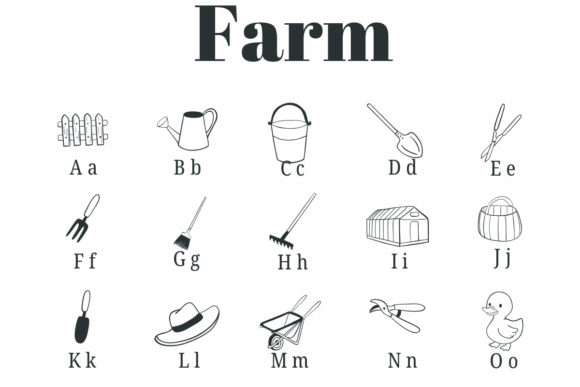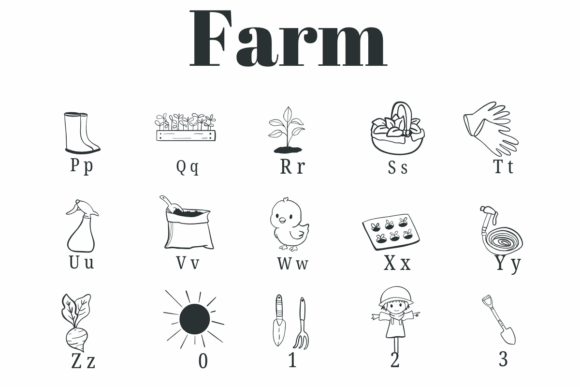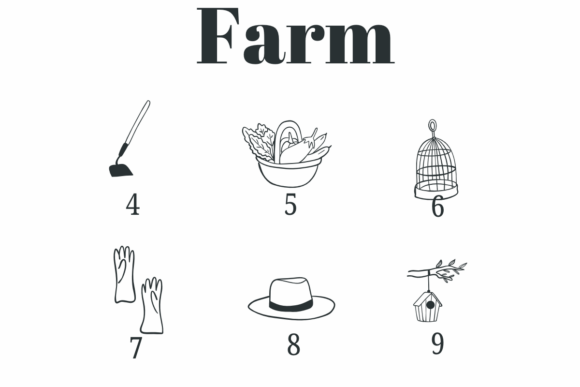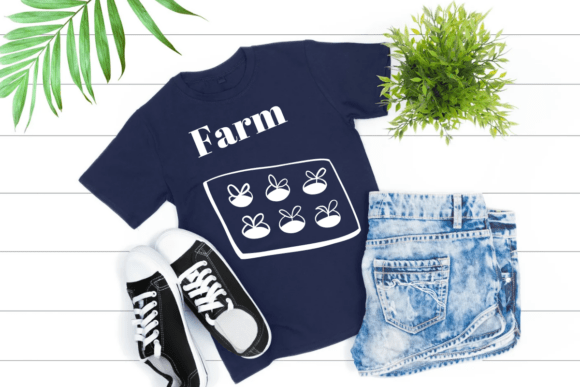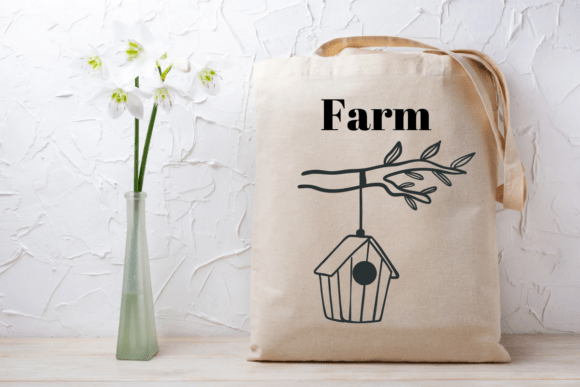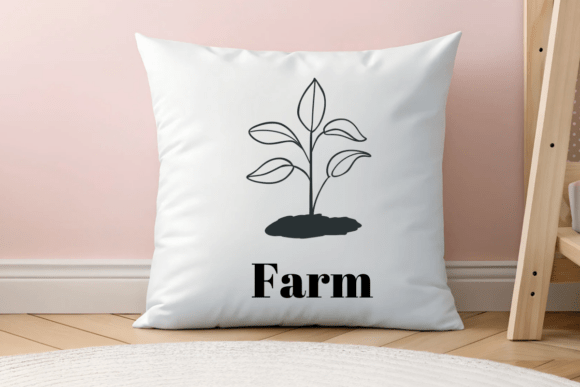
The Charm of Farm Font: Elevating Creative Projects with a Sketchy Twist
I’ll never forget the time I was working on a wedding invitation project, and my client asked for a font that would evoke a rustic, countryside feel. I scoured the internet, tried out countless fonts, but nothing seemed quite right. That was until I stumbled upon Farm Font, a dingbats font with a delightful sketch style that perfectly captured the essence of a rural wedding. In this article, I’ll share my experience with Farm Font, its unique features, and how you can make the most of it in your creative projects.
A Personal Review of Farm Font
- ✨ Unique sketch style that adds a personal touch to any project
- ✅ Extensive collection of glyphs and symbols, perfect for DIY crafts and decorations
- 🌼 Highly versatile, suitable for a wide range of creative projects, from wedding invitations to logos
While Farm Font is an excellent choice for many projects, there are a few things to keep in mind:
- ⚠️ Some glyphs may require manual adjustment to fit perfectly with your text
- 🤔 Limited support for non-English characters, so make sure to check compatibility before use
The Story Behind Farm Font
Farm Font was designed with the intention of capturing the rustic charm of rural landscapes. The designer, inspired by the rolling hills and countryside of their childhood, aimed to create a font that would evoke a sense of simplicity and authenticity. The result is a unique, sketch-style font that adds a personal touch to any project.
| What type of projects is Farm Font best suited for? | Farm Font is highly versatile and can be used for a wide range of creative projects, including wedding invitations, DIY crafts, decorations, logos, and more. |